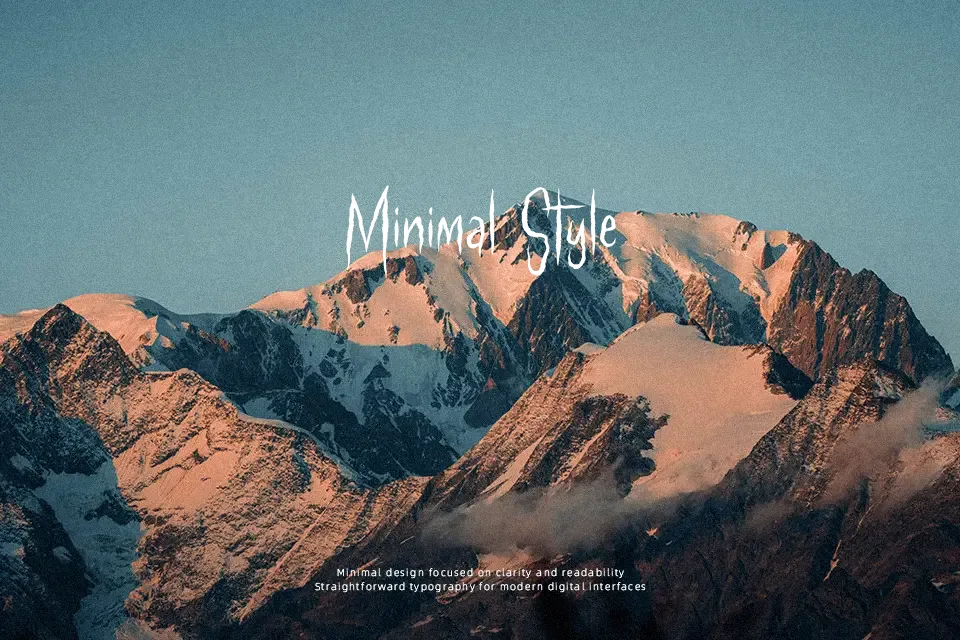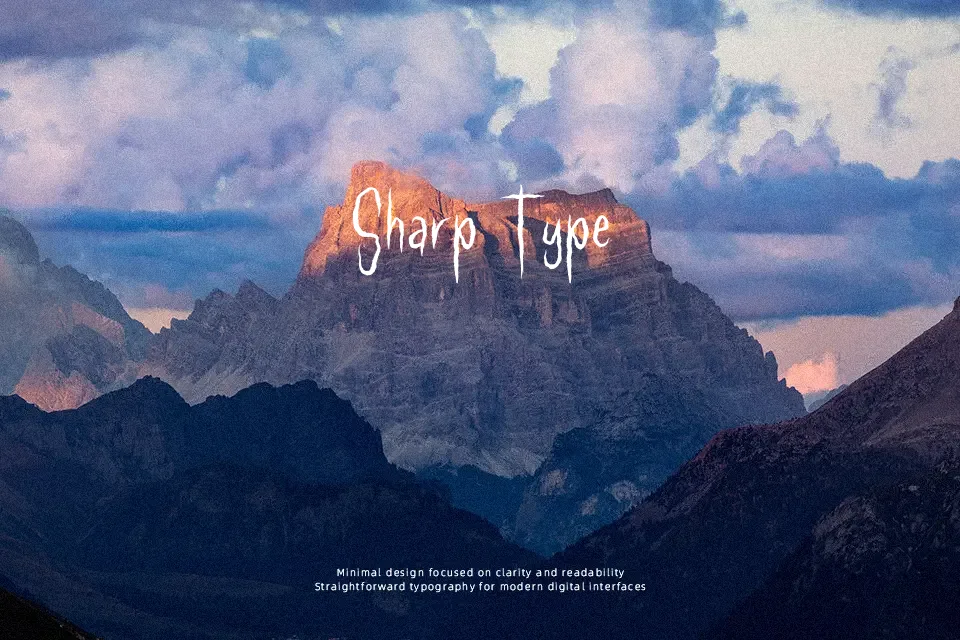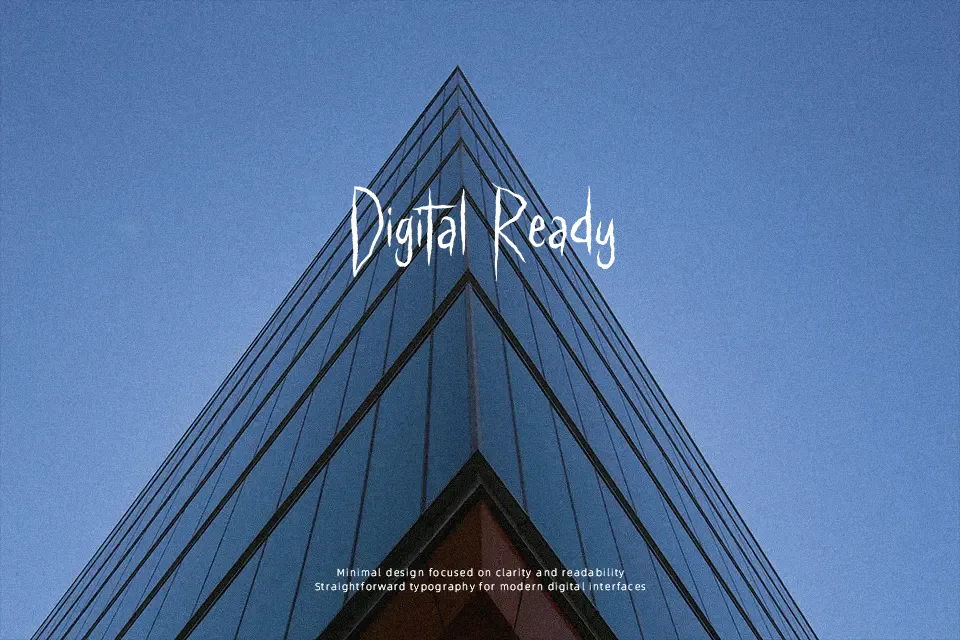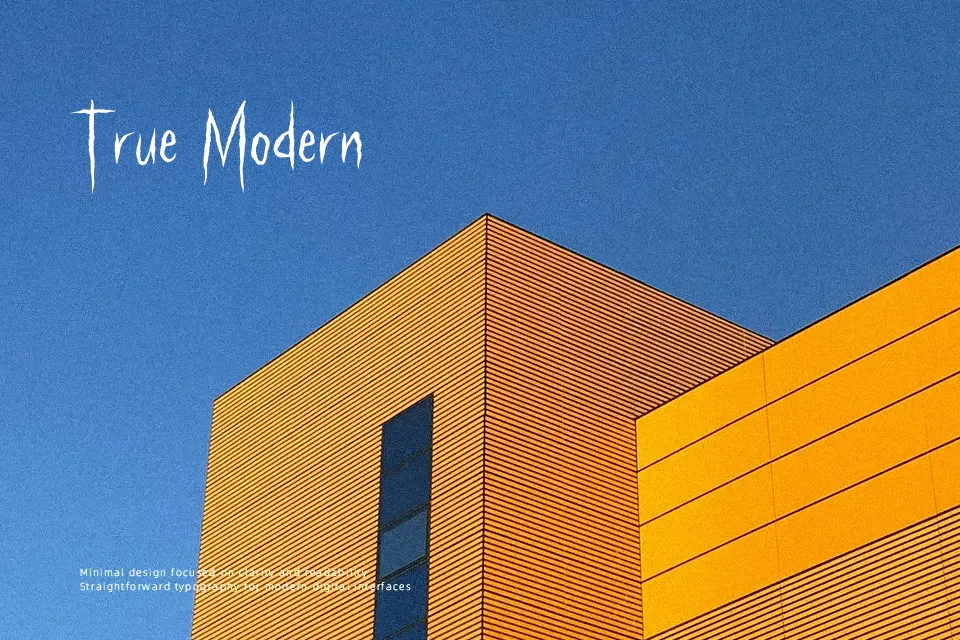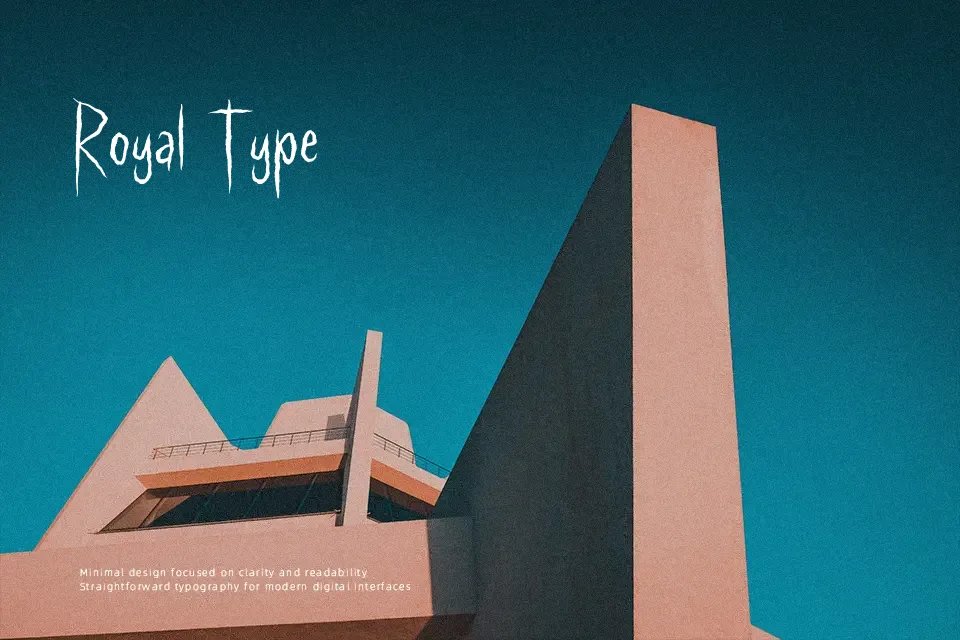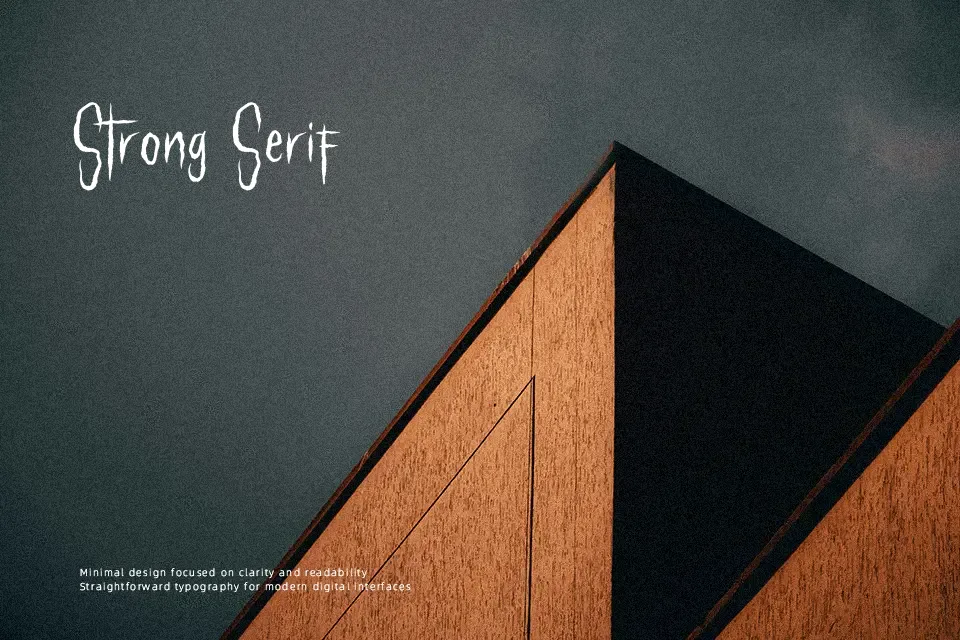
Night Stalker Font
Night Stalker presents a distressed horror aesthetic, with sharply broken outlines, uneven stroke edges, and compact, narrow characters that cluster tightly together for a dense, high-impact look in short display text. The design emphasizes grungy texture over smooth curves, so the spacing feels visually tight and the proportions favor tall, compressed forms rather than open counters, which reinforces its aggressive tone in headlines and short titles. These letterforms remain clear enough for larger sizes on posters, logos, or event graphics, where the rough detailing enhances atmosphere, but the same decorative texture can start to hinder comfort in smaller captions or continuous reading. Overall, the typeface works best as a dramatic accent rather than a general-purpose text solution.
horror movie posters
haunted event titles
themed logo lockups
dark merchandise graphics
body copy in articles
dense data tables